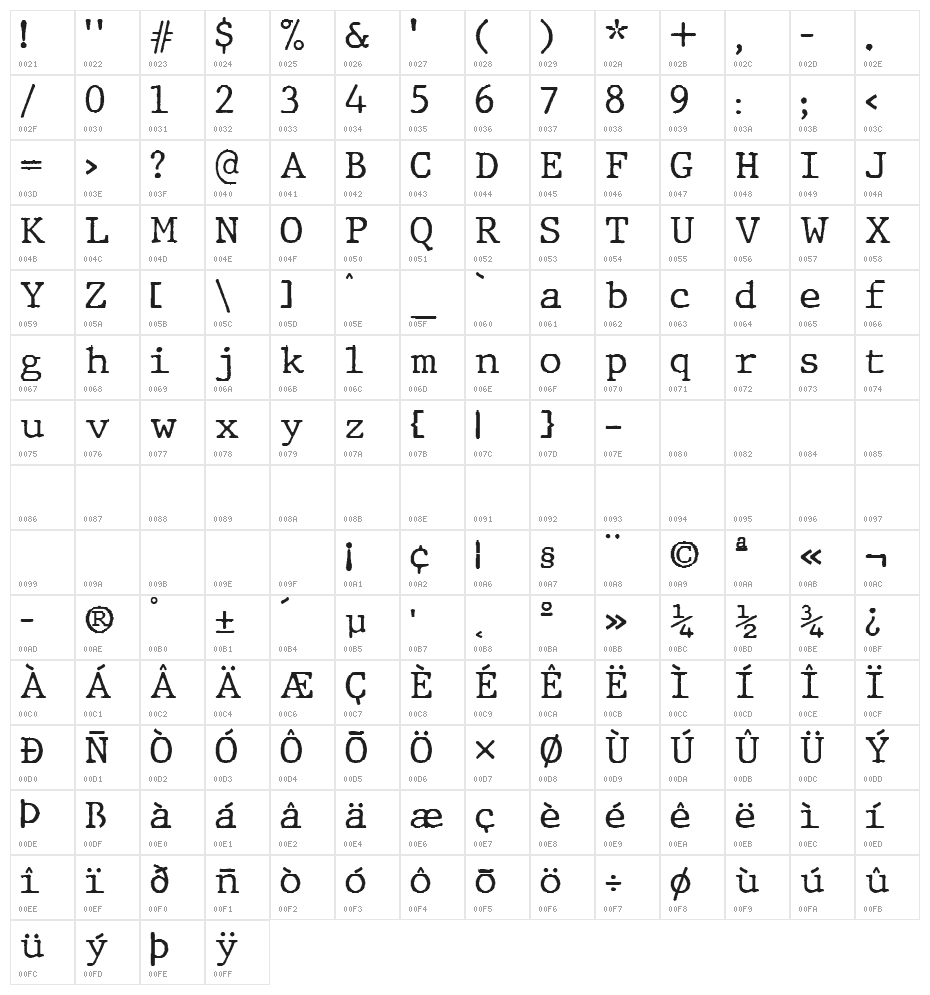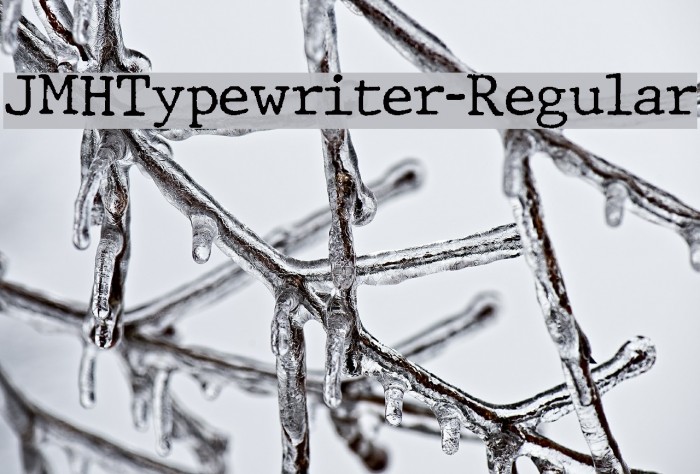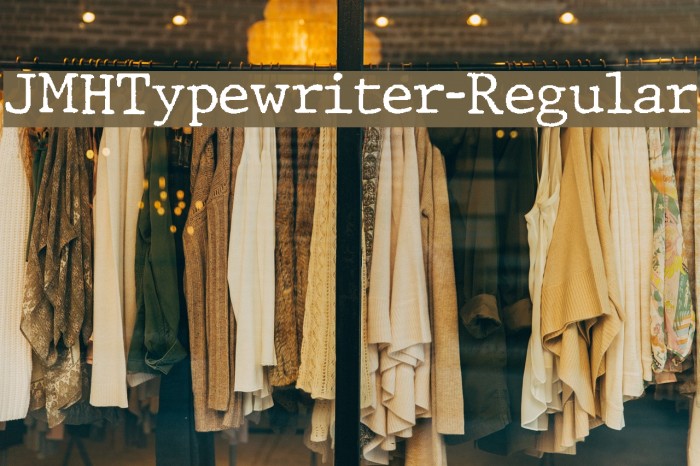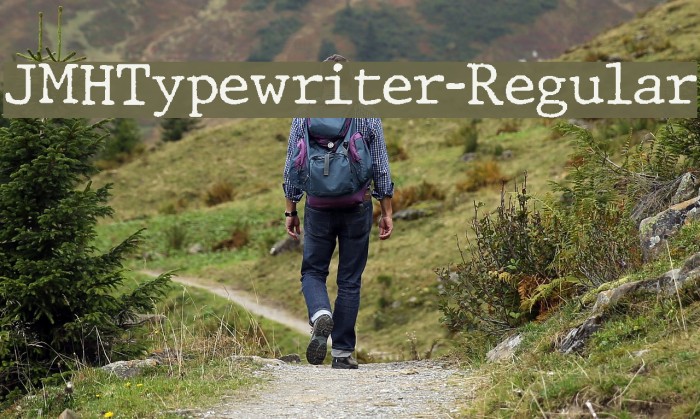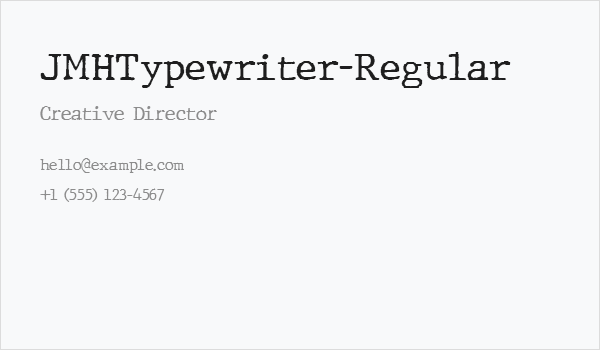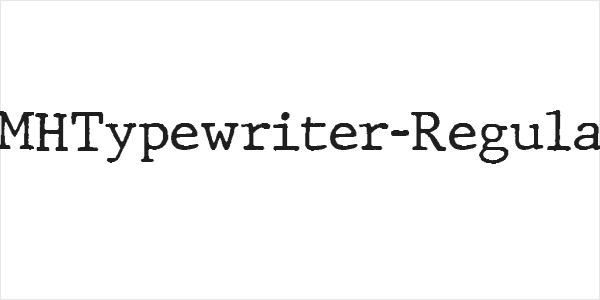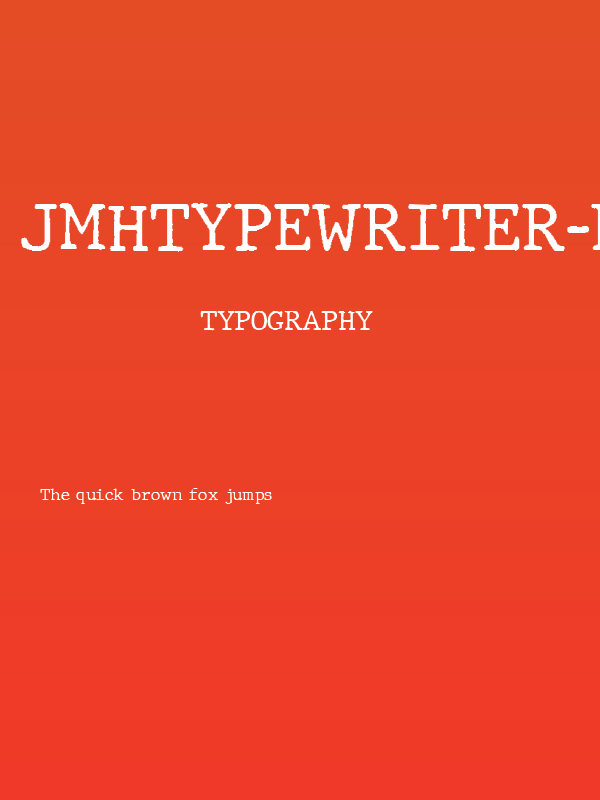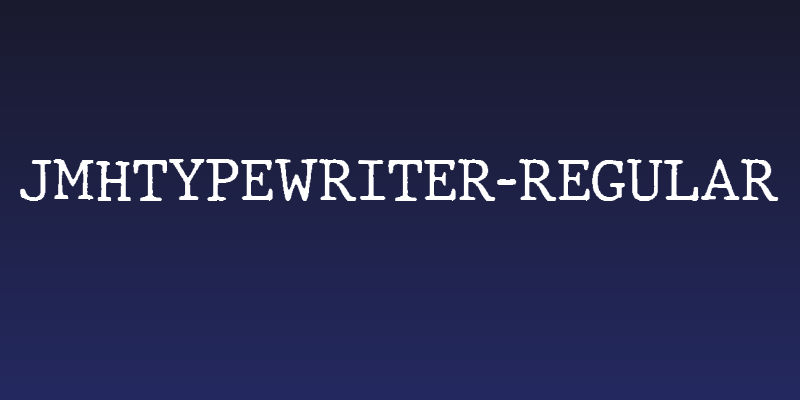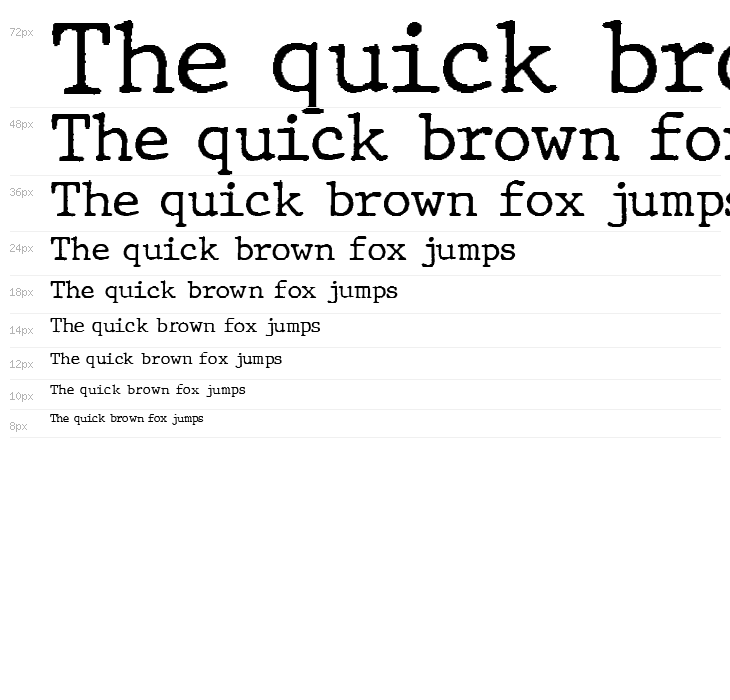
JMHTypewriter-Regular Font
JMHTypewriter-Regular Description
This typewriter-style font features a classic, monospaced design that evokes the nostalgic feel of vintage typewriters. Each character is evenly spaced, creating a uniform and orderly appearance. The font includes both uppercase and lowercase letters, numerals, and a variety of special characters. The strokes are consistent in width, providing a clean and straightforward look. The slightly rough edges of the characters add to its authentic typewriter aesthetic, making it ideal for projects that require a retro or mechanical feel.
| Overall Style | Vintage |
| Use Case | Headlines, Body text, Logos |
| Proposed Projects | Ideal for retro-themed designs, typewriter art, coding projects, or any creative work that requires a vintage or mechanical feel. |